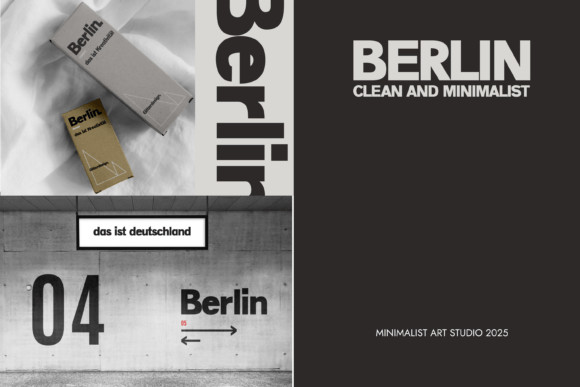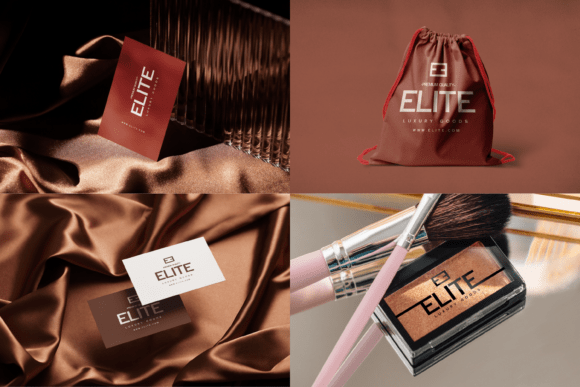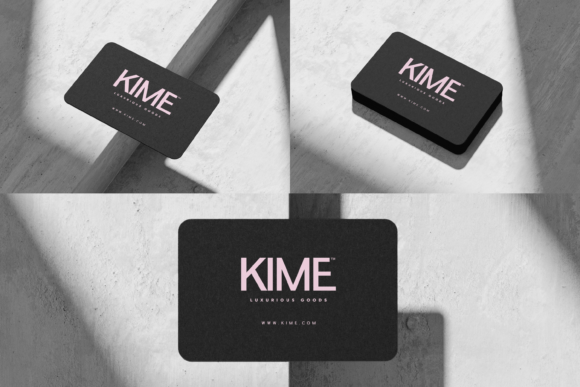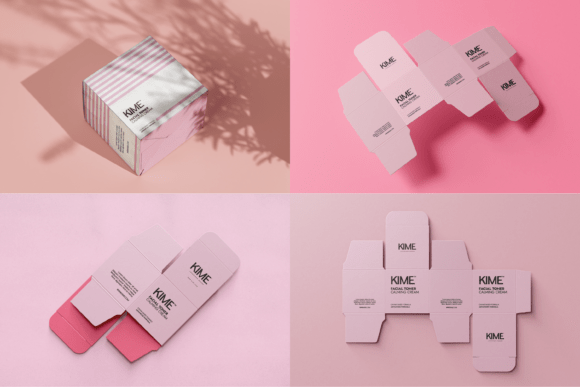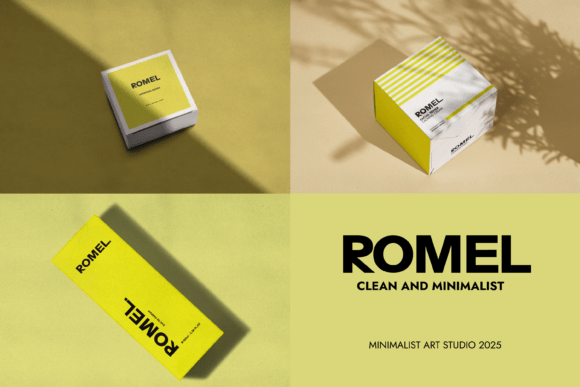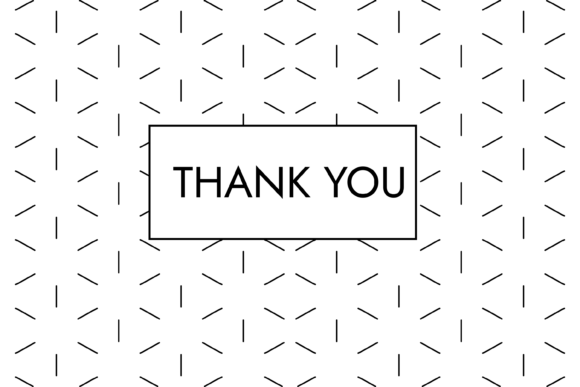
Unlock the Power of Modern Design with Geometrica Font
As a designer, have you ever found yourself struggling to convey a sense of professionalism and elegance in your work? Maybe you’re working on a luxury brand’s packaging design, or creating a high-end website that needs to exude sophistication. Whatever the project, finding the right font can be a daunting task. That’s where the Geometrica Font Collection comes in – a premium set of four geometric minimalist sans serif fonts inspired by iconic Swiss design principles.
With its clean and versatile design, Geometrica Font is perfect for modern creatives who demand a high level of precision and sophistication in their work. Each typeface has been carefully crafted to provide perfect visual balance and timeless simplicity, making it an invaluable asset for any designer looking to elevate their projects with effortless style.
- Unique Characteristics: Geometrica features a unique blend of geometric and organic shapes, resulting in a clean and modern aesthetic
Designer Review: Geometrica Font
Overall, I think Geometrica Font is a solid addition to any design library. It has a certain ✨je ne sais quoi that makes it stand out from other geometric fonts.
- Unique character shapes and proportions that add visual interest
- Smooth and refined lines that make it easy to read
- Works well in a variety of contexts, from body text to display headings
- ⚠️ Limited language support, which may be a concern for multilingual projects
- ⚠️ Some characters may not be suitable for use in small sizes or at high resolutions
- ⚠️ Not as versatile as some other geometric fonts, which may limit its use in certain designs
Overall, I’d give Geometrica Font 4 out of 5 stars. It’s a great choice for projects that require a unique and modern look, but it may not be the best fit for every design. With some careful consideration and planning, it can be a great addition to your design library.
Getting the Most Out of Geometrica Font
To get the most out of Geometrica Font, consider the following tips:
- Use Geometrica Font in conjunction with other geometric shapes and designs.
- Experiment with different font sizes and colors to create visual interest.
- Use Geometrica Font in headings and titles to create a cohesive look.
Some common use cases for Geometrica Font include:
The recommended font size for Geometrica is between 12pt and 48pt. At smaller sizes, the font may become difficult to read, while larger sizes may be too imposing. For optimal legibility, use Geometrica at sizes between 14pt and 24pt.